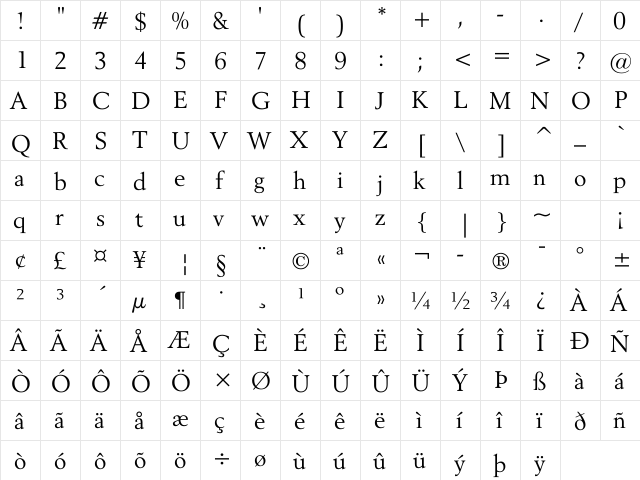
CoyGarr Regular
Design Context for CoyGarr Typeface
CoyGarr takes a measured approach to typography — its balanced proportions and neutral character make it a reliable workhorse for both digital and print work.